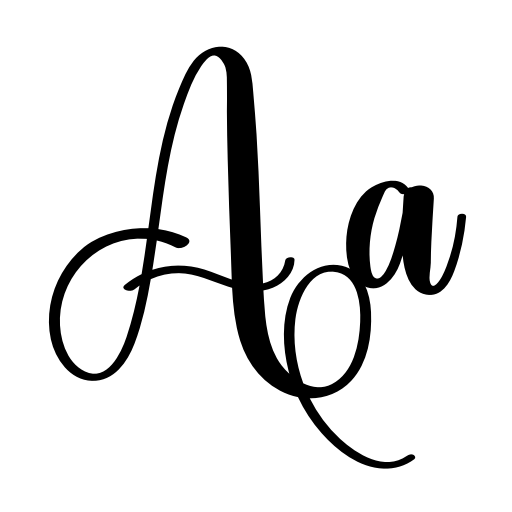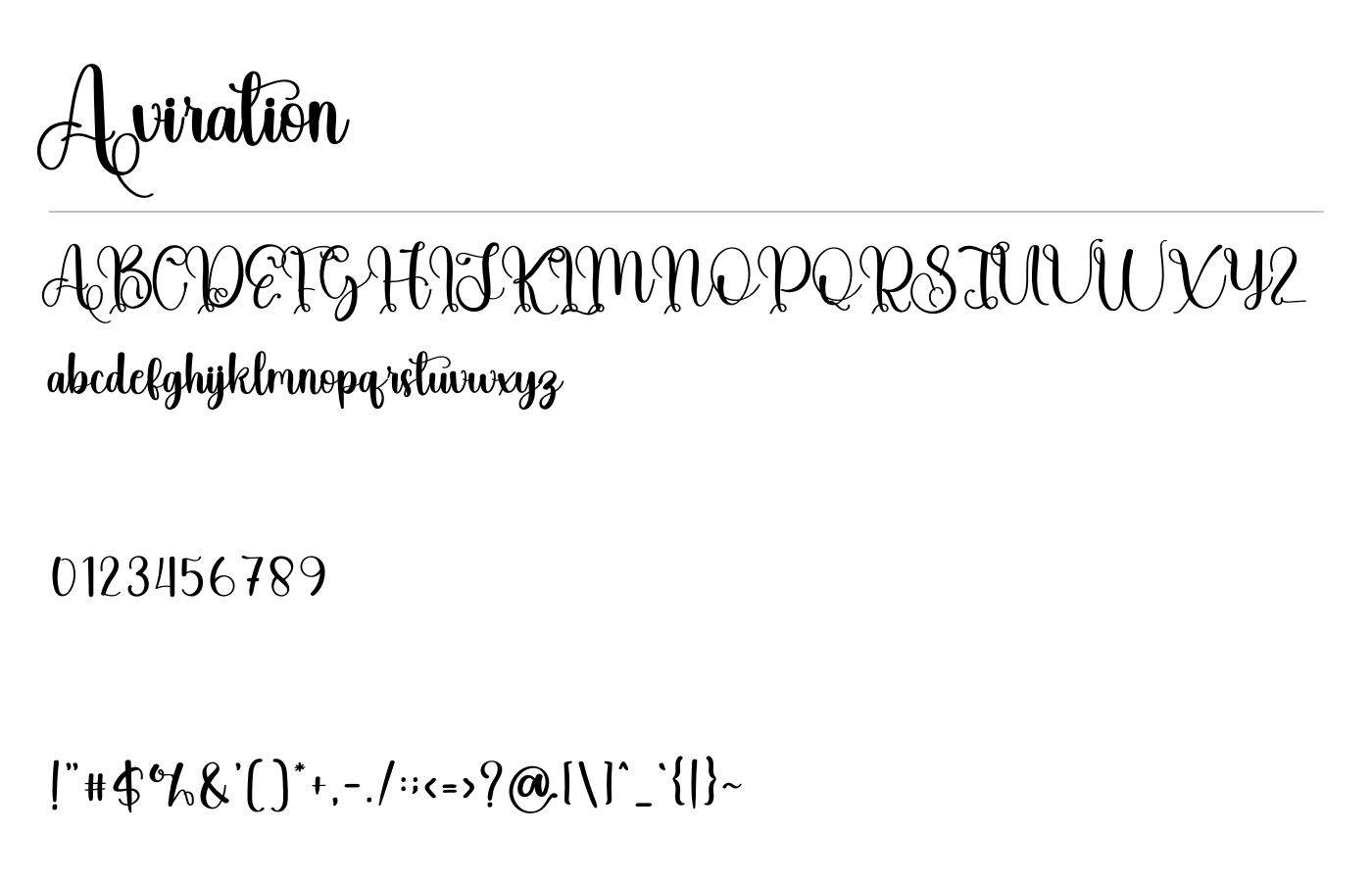
Aviration is an elegant script font featuring delicate, flowing lines with a stylish, calligraphic flair. Its uppercase letters are adorned with decorative swirls, lending a sophisticated and ornamental feel, while the lowercase characters maintain smooth readability. This font works beautifully for wedding invitations, branding, and any design that seeks a refined, romantic touch.
Aviration Font
About Aviration Font